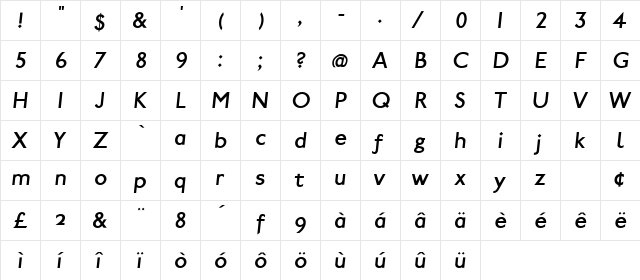
Paddington RomanItalic
Design Context for Paddington Typeface
Paddington offers clean, dependable letterforms without strong stylistic allegiance, making it a practical choice for designers who need flexibility. The slanted form adds forward momentum and visual energy.